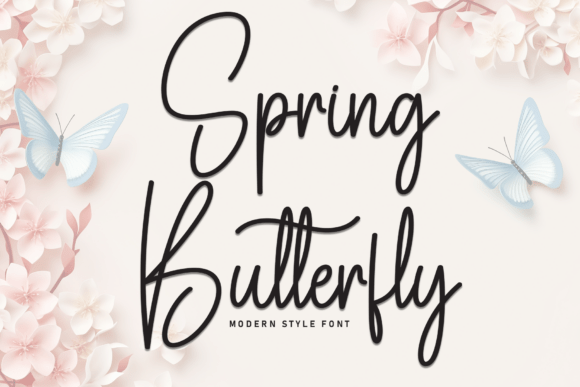
Introducing Spring Butterfly Font: The Epitome of Elegance and Whimsy
As the seasons change and spring arrives, it’s the perfect time to infuse your designs with a sense of renewal and freshness. Introducing Spring Butterfly, a beautiful handwritten script font that embodies the delicate charm and elegance of the season. With its flowing strokes and graceful curves, this lovely typeface is sure to add a soft, personal touch and uplifting feel to any project.
The Inspiration Behind Spring Butterfly Font
Spring Butterfly Font is inspired by the beauty of nature, particularly the butterflies that emerge during the spring season. The font’s creator aimed to capture the essence of these delicate creatures, with their intricate patterns and gentle movements. The result is a font that exudes a sense of whimsy and playfulness, while still maintaining a level of sophistication and elegance.
Key Features of Spring Butterfly Font
- Handwritten Script Font: Spring Butterfly is a handwritten script font that boasts a high level of elegance and sophistication. Its flowing strokes and connected letters create a sense of fluidity and movement.
- Delicate Charm: The font’s delicate charm is perfect for designs that require a touch of whimsy and playfulness. It’s ideal for invitations, branding, and seasonal designs.
- Fresh Elegance: Spring Butterfly Font radiates fresh elegance, making it perfect for designs that require a sense of renewal and rejuvenation.
- Versatile: This font is versatile and can be used for a wide range of design projects, from invitations and greeting cards to branding and advertising materials.
Uses of Spring Butterfly Font
Spring Butterfly Font is a versatile typeface that can be used for a wide range of design projects. Here are some of the most popular uses of this beautiful font:
- Invitations: Use Spring Butterfly Font to create beautiful and elegant invitations for weddings, baby showers, and other special occasions.
- Branding: This font is perfect for branding projects that require a touch of elegance and sophistication. Use it to create logos, business cards, and other marketing materials.
- Seasonal Designs: Spring Butterfly Font is perfect for seasonal designs, such as Easter and Mother’s Day promotions, spring-themed advertising campaigns, and more.
- Greeting Cards: Use this font to create beautiful and heartfelt greeting cards for special occasions.
Benefits of Using Spring Butterfly Font
There are many benefits to using Spring Butterfly Font in your design projects. Here are some of the most significant advantages:
- Unique and Eye-Catching: Spring Butterfly Font is a unique and eye-catching typeface that will set your designs apart from the competition.
- Elegant and Sophisticated: This font exudes elegance and sophistication, making it perfect for high-end branding and advertising projects.
- Versatile: Spring Butterfly Font is versatile and can be used for a wide range of design projects.
- Easy to Read: Despite its elegant and cursive nature, Spring Butterfly Font is easy to read, even at small sizes.
Tips for Using Spring Butterfly Font Effectively
Here are some tips for using Spring Butterfly Font effectively in your design projects:
- Use it Sparingly: While Spring Butterfly Font is beautiful, it’s best to use it sparingly to avoid overwhelming the reader.
- Pair it with Other Fonts: Pair Spring Butterfly Font with other fonts to create visual interest and hierarchy.
- Experiment with Colors: Experiment with different colors to find the perfect combination that complements your design.
- Pay Attention to Kerning: Pay attention to kerning and tracking to ensure that the font looks elegant and sophisticated.
Spring Butterfly Font is a beautiful and elegant handwritten script font that radiates fresh elegance and delicate charm. Its flowing strokes and graceful curves evoke a sense of renewal, perfect for invitations, branding, and seasonal designs. With its versatility, unique style, and ease of use, Spring Butterfly Font is the perfect addition to any design project.